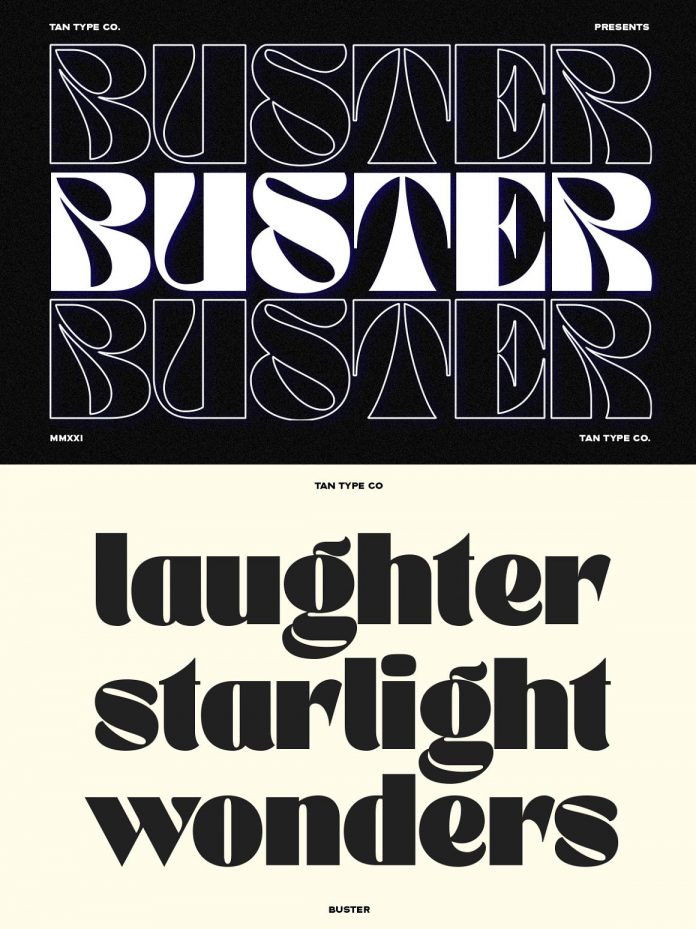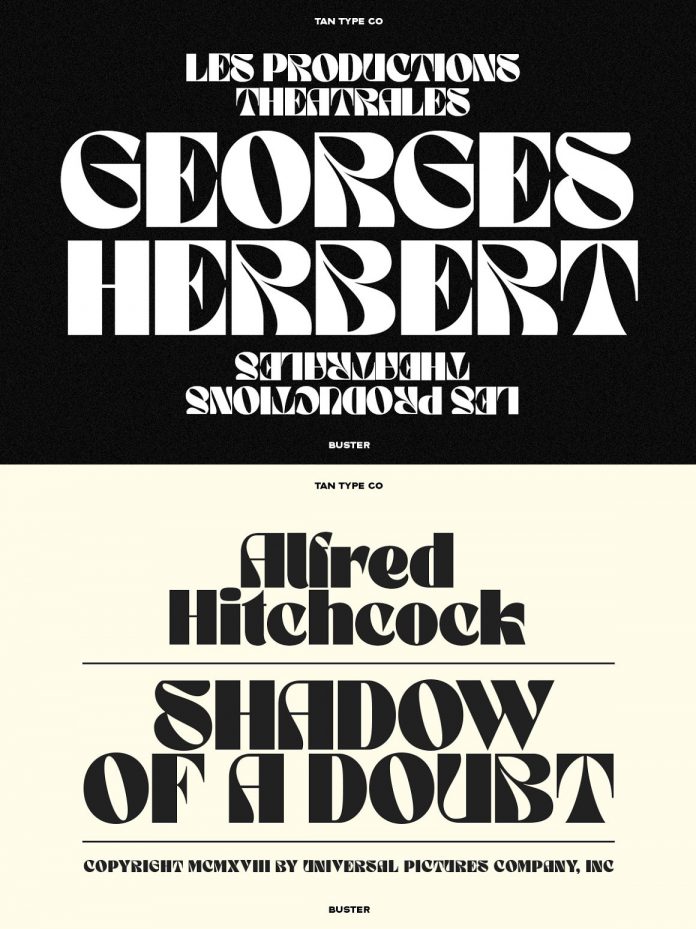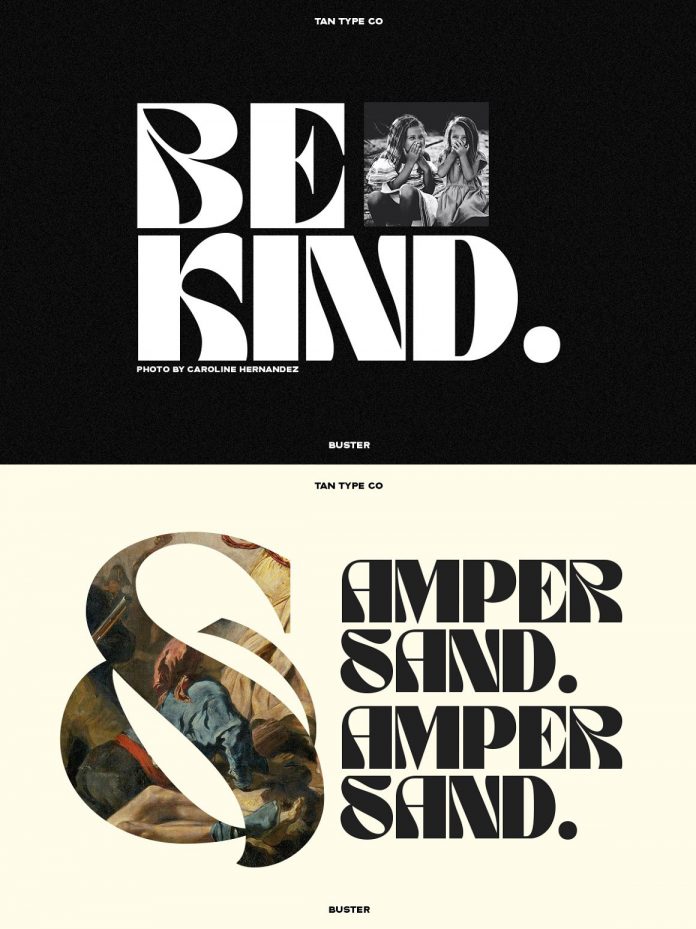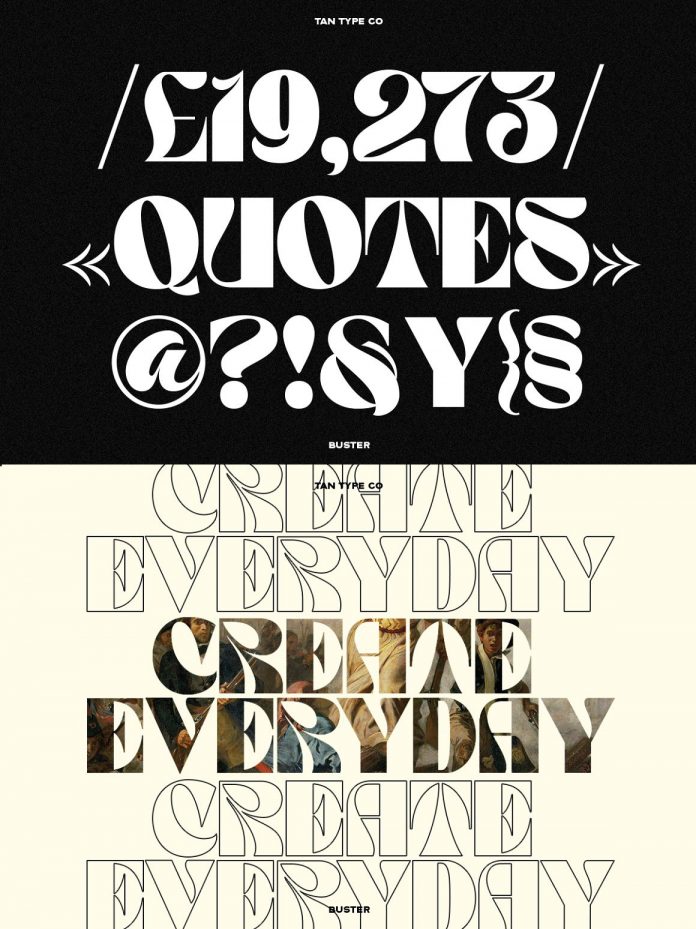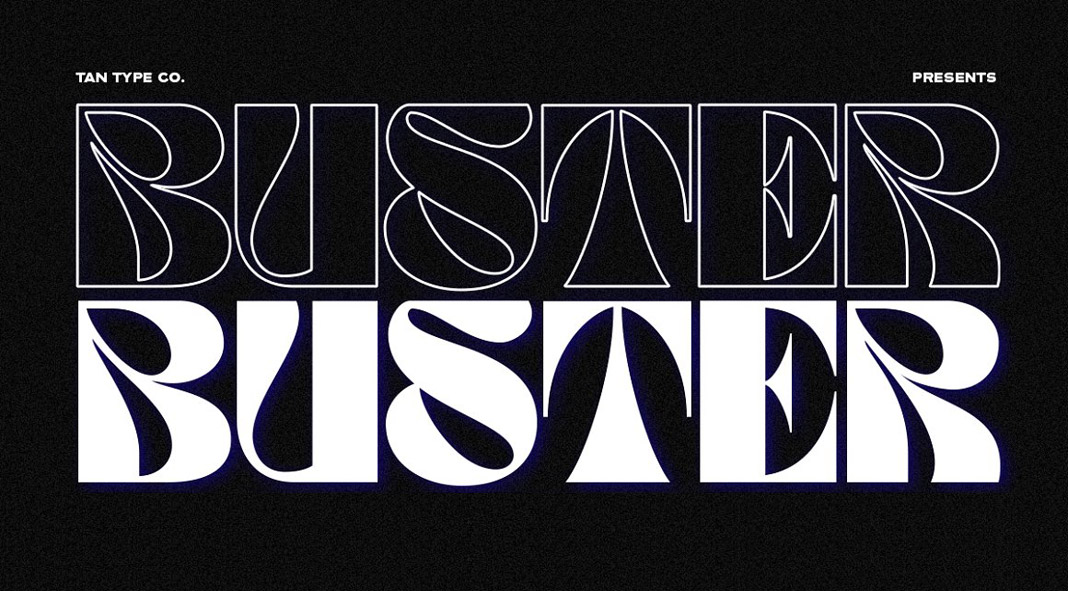
Tan Buster, a vintage-inspired display typeface designed and published by foundry TanType.
TanType is a small design studio and type foundry specializing in decorative typefaces. Published in February 2021, TAN BUSTER is a new vintage-inspired display typeface. Based on bold, distinctive letters, it offers a fun and groovy personality. TAN BUSTER is a great choice for retro logo designs, striking headlines, posters, or anything that asks for a little bit of vintage.